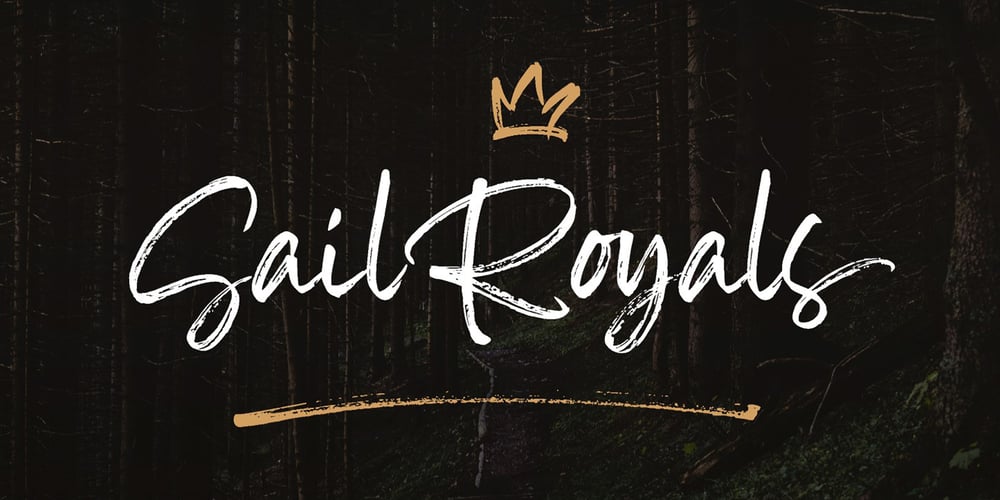
Sail Royals Font Family was designed by Muhammad Naufal Anis and published by Mas Anis Studio. Sail Royals contains 2 styles and family package options. Sail Royals! Handwritten font with a personal charm. Each letters was made with brushpen on real paper, then scanned and crafted to vector carefully to add strong characteristic. With quick dry strokes and signature style, Sail Royals is perfect for branding projects, homeware designs, product packaging – or simply as a stylish text overlay to any background image like quote images.